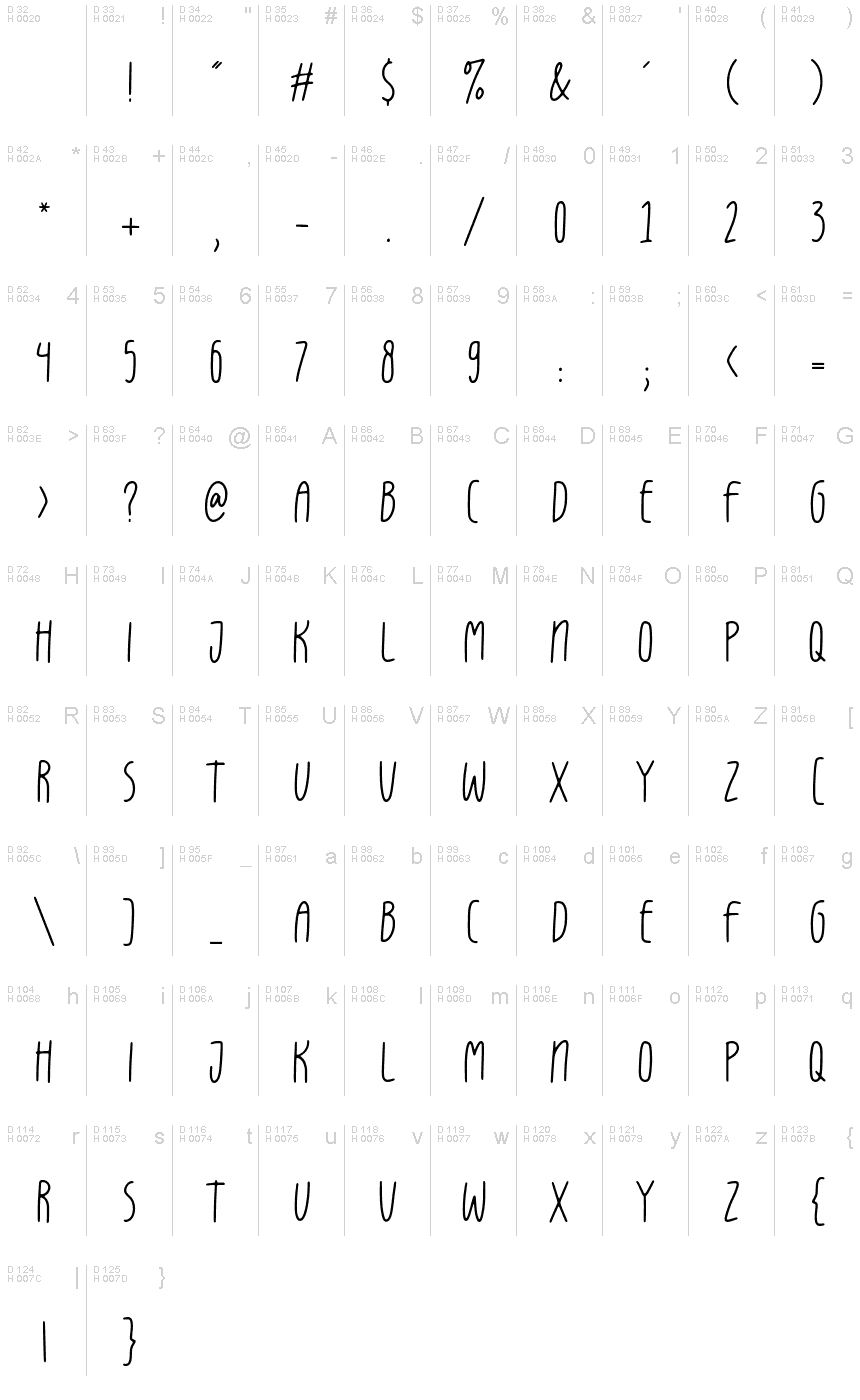
great banana regular
Great Banana, designed by Aestherica Studio, is a mesmerizing handwritten font that adds a touch of playfulness and elegance to any project. Its semi-light weight beautifully balances readability with a subtle artistic flair. With its extra-condensed width, Great Banana is perfect for creative endeavors like children's books, invitations, and branding materials. Whether you're aiming for a whimsical atmosphere or an eye-catching logo design, this font is guaranteed to make your content stand out from the crowd and leave a lasting impression on your audience.